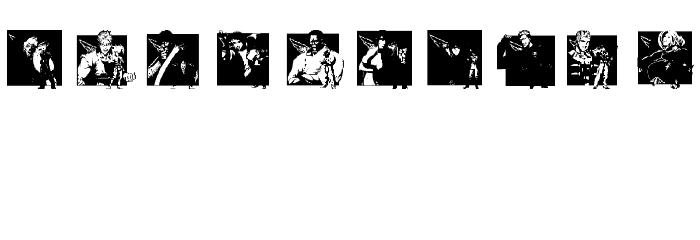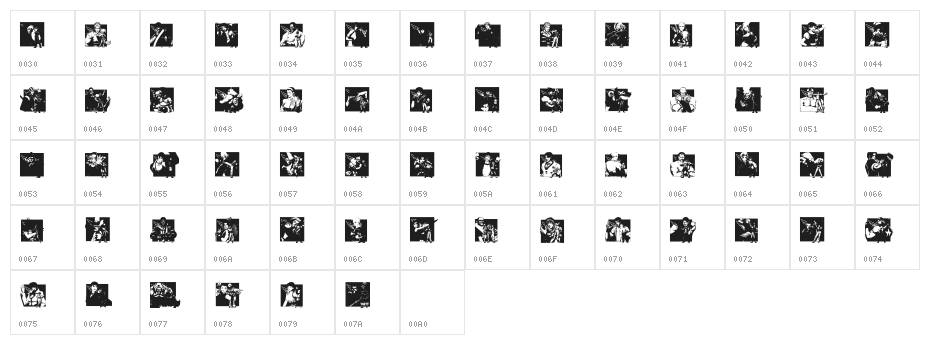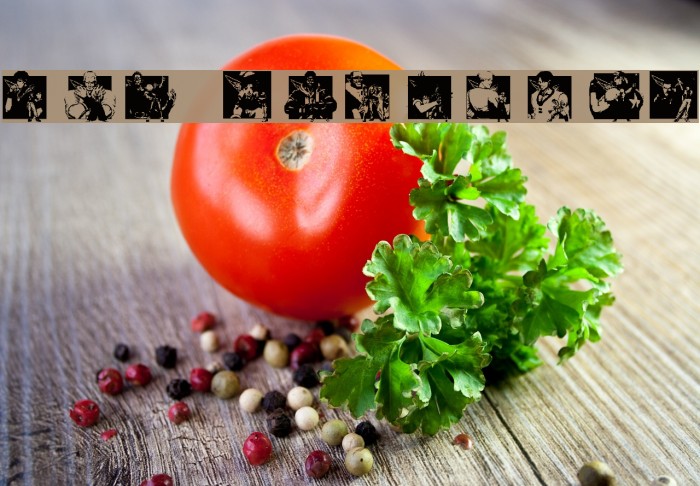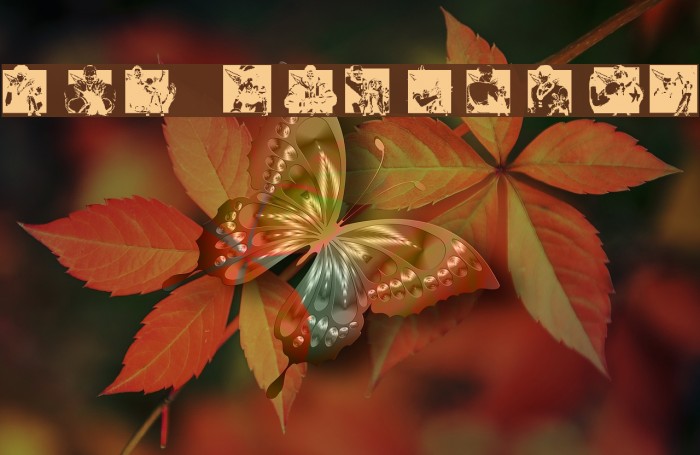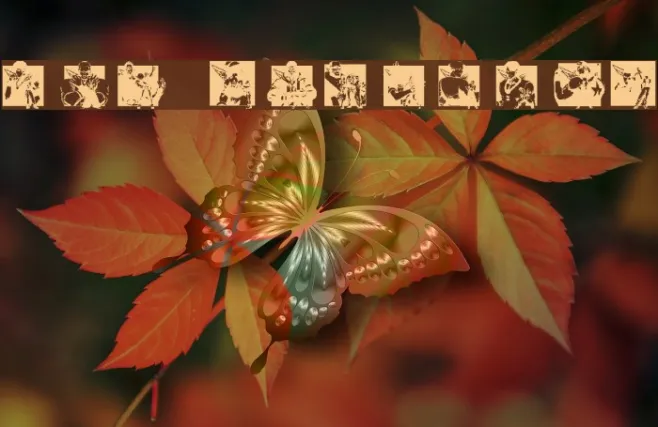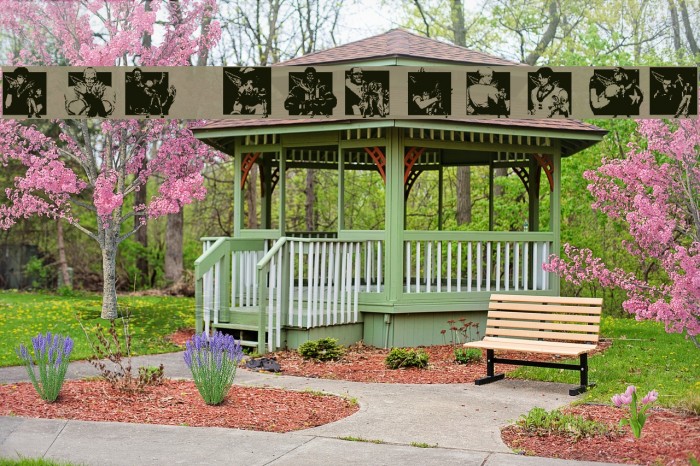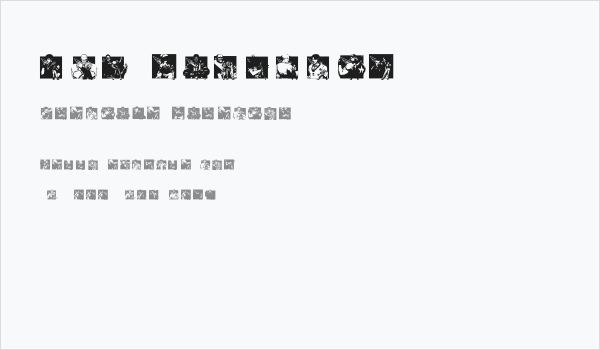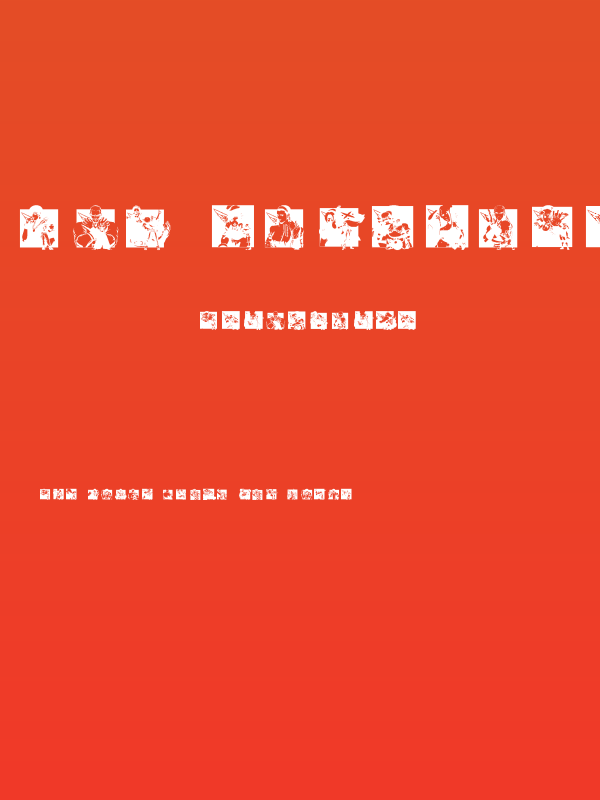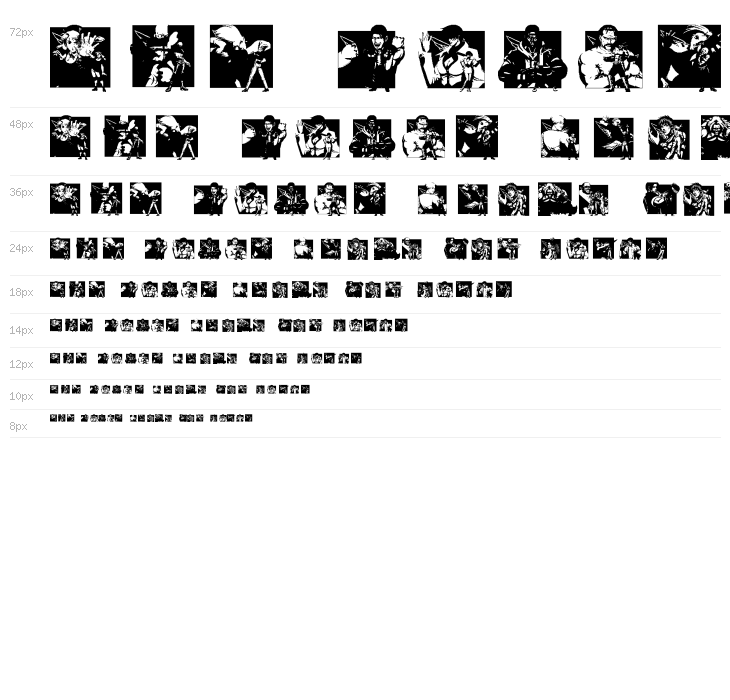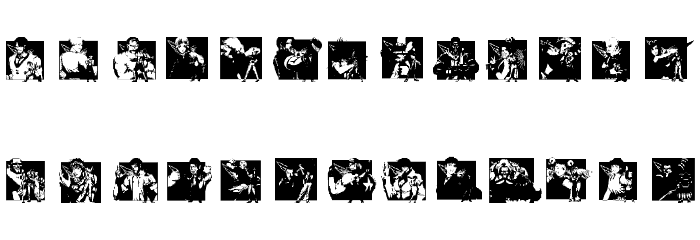
KOF Dingbats Font
KOF Dingbats Description
A collection of black-and-white pictorial glyphs depicting various dynamic characters in action poses, rendered in a high-contrast, silhouette style. Each glyph is contained within a square, with detailed, comic-inspired illustrations.
| Overall Style | Decorative, Comic-inspired, Thematic |
| Use Case | Icons, Decorative elements, Themed graphics |
| Proposed Projects | Posters, game-themed graphics, fan art, decorative icons, comic book layouts. |